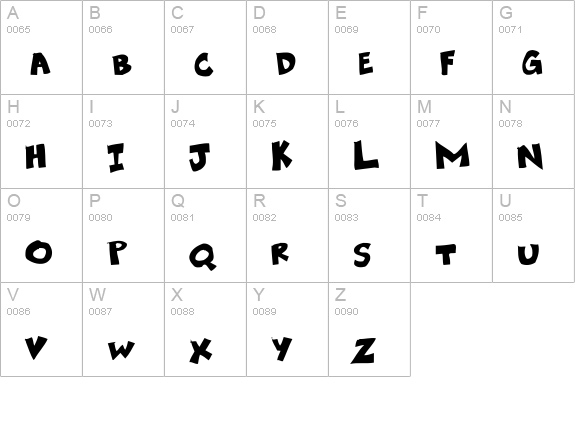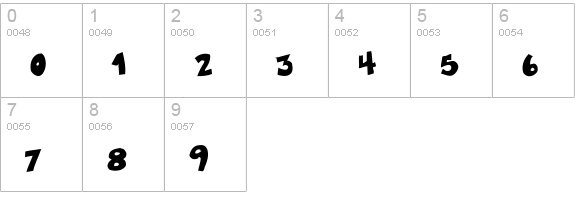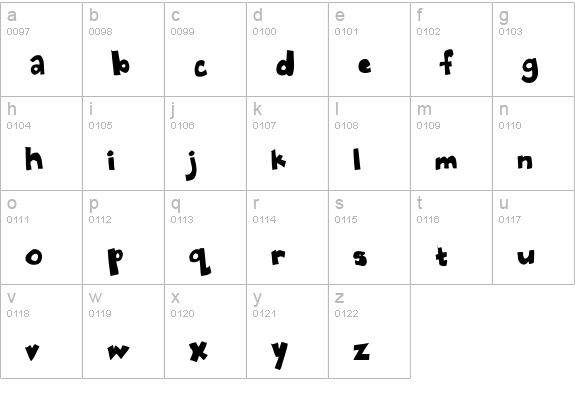
EatpooChubby Font Details
Introducing the delectable and delightful EatpooChubby font, a true feast for the eyes. This charming and playful typeface is perfect for adding a touch of whimsy to any creative project. Its rounded and chubby letterforms exude a sense of warmth and friendliness, making it an ideal choice for designs aiming to create a welcoming and approachable atmosphere. But what makes EatpooChubby font truly special is that it is not only visually appealing, but also freely available to download at FontsMarket.com. Yes, you read that right - this delightful font can be yours at absolutely no cost! Say goodbye to the hassle of budget constraints and hello to the joy of artistic expression without limits. Whether you're designing a logo, crafting a greeting card, or sprucing up your website, EatpooChubby font will infuse your creations with a touch of whimsical charm. Its versatility allows it to effortlessly adapt to various design styles, from playful and lighthearted to modern and trendy. The rounded and chubby letterforms of EatpooChubby font are sure to put a smile on anyone's face. Its generous curves and soft edges create a sense of comfort and familiarity, making it a favorite among designers and creatives alike. With an extensive character set that includes uppercase and lowercase letters, numbers, and punctuation marks, this font ensures that you have all the tools you need to bring your vision to life. So why wait any longer? Indulge your creative cravings with EatpooChubby font, a delightful typeface that is both visually captivating and freely available to download at FontsMarket.com. Embrace the freedom of artistic expression and let your imagination run wild with this charming and versatile font. Get ready to add a pinch of whimsy to your designs and watch them come alive with personality.